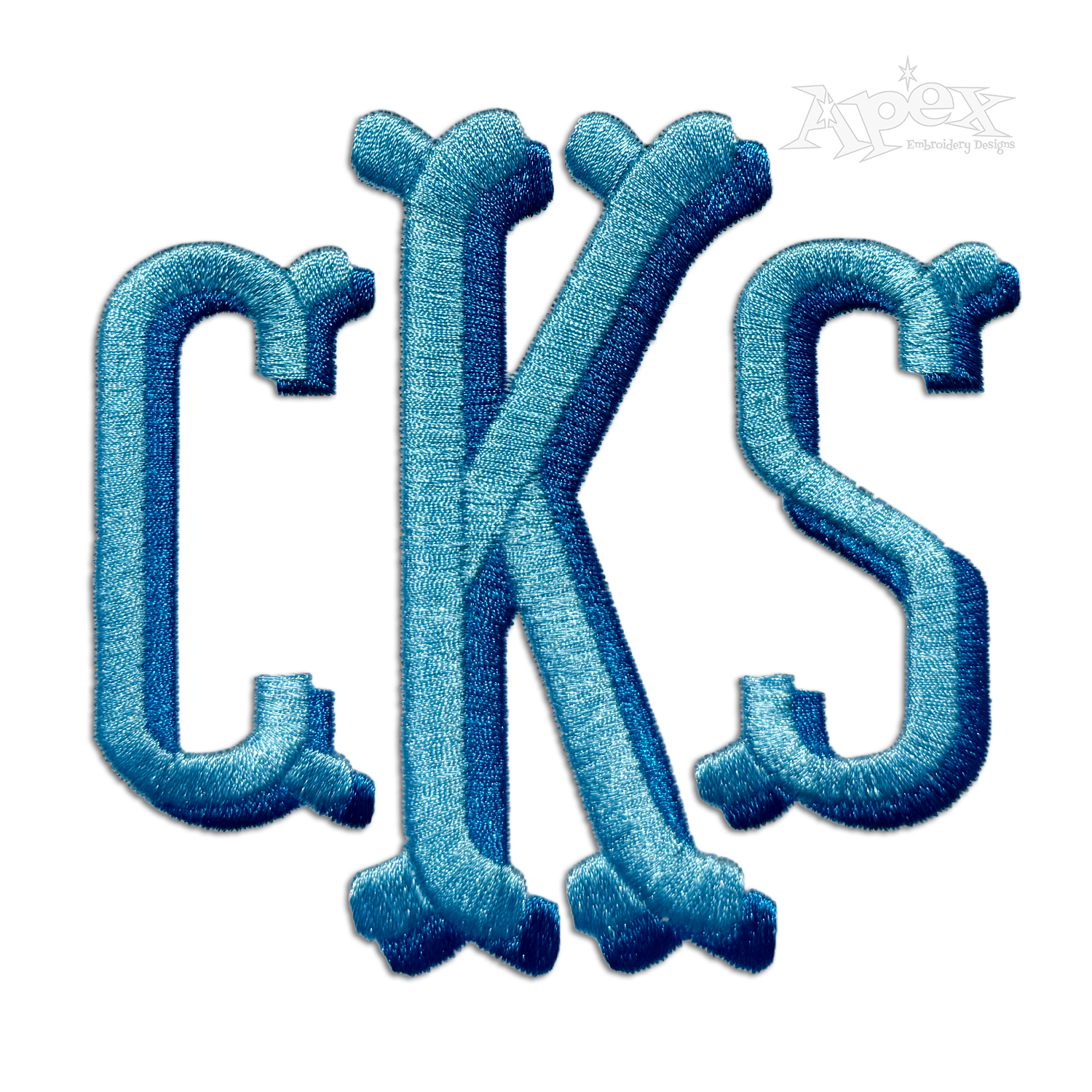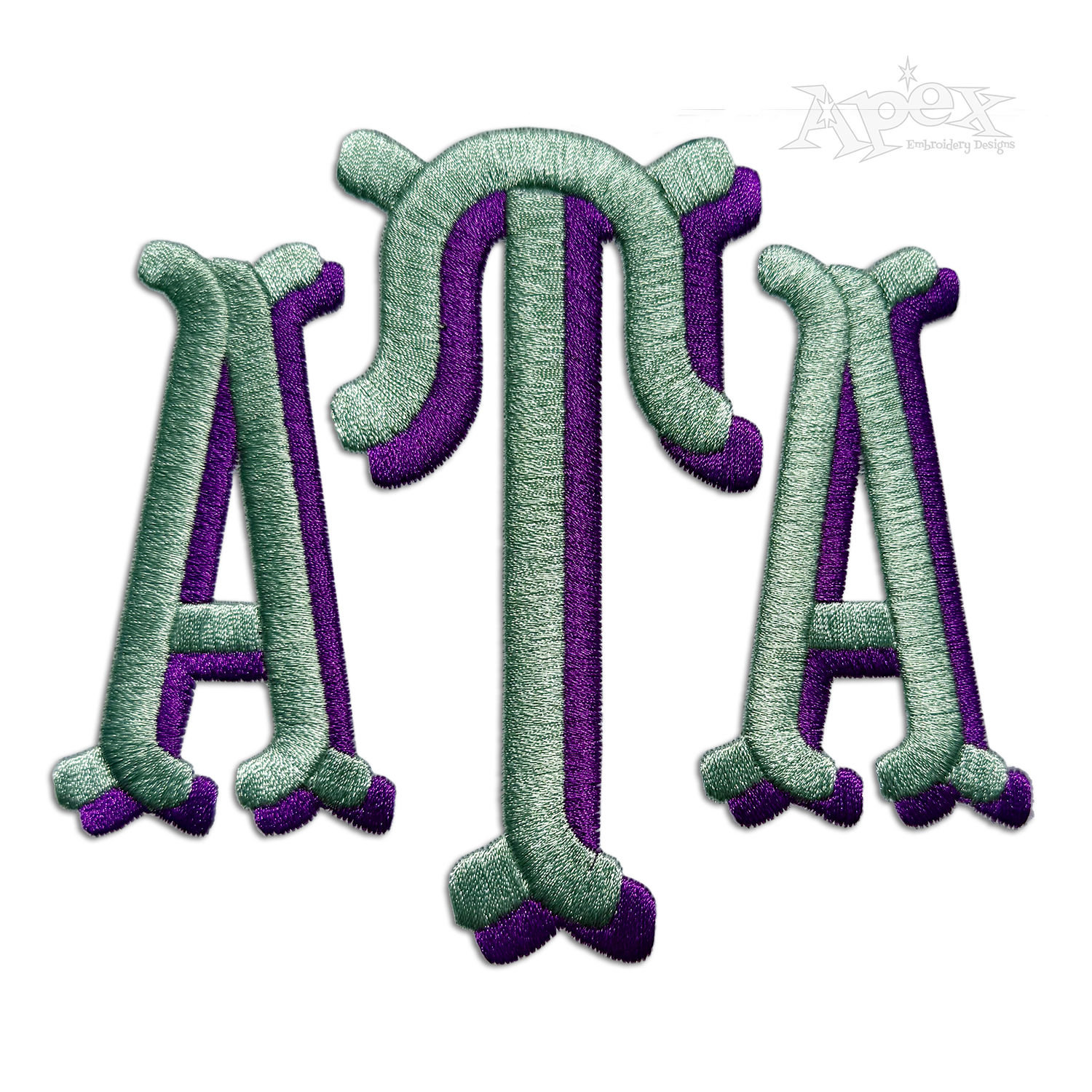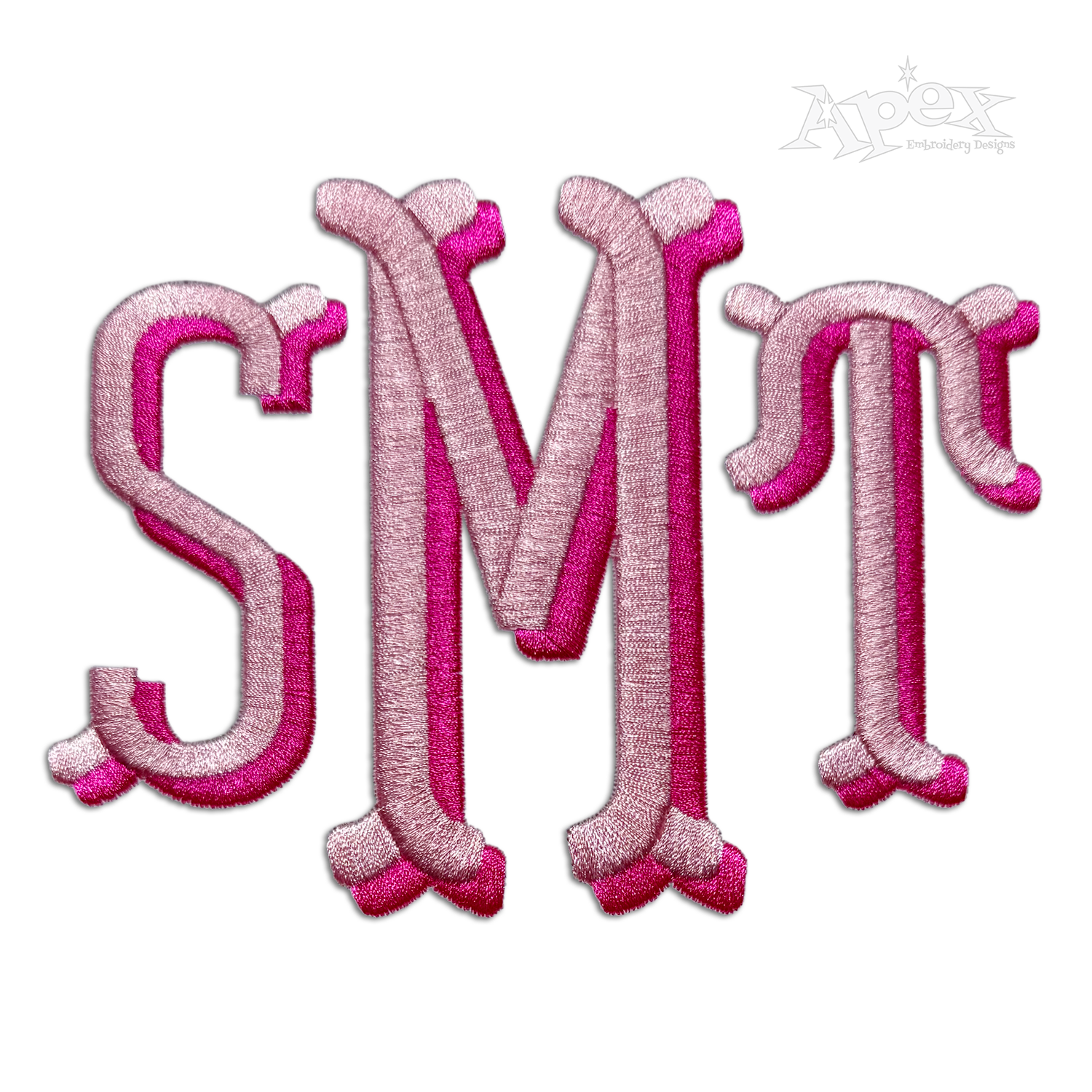
Fishtail Rounded Shadow Stacked Embroidery Font
Create shadow stacked style personalized gifts and home décor with Fishtail Rounded . All satin both shadow and stacked 2-color Monogram Embroidery Font embroidery monogram set is perfect for customizing hats, linens, towels, baby gifts, tote bags, and more.
This premium 2-color Fishtail Shadow embroidery font collection includes complete size sets with uppercase monogram letters designed for creating stunning 3-letter monograms. Each font comes professionally digitized for smooth stitching and excellent embroidery results. Apex has digitized machine embroidery fonts for over 25 years.
- Fishtail Shadow French Monogram Font
- All Satin Stitch for 3-Letter Monograms
- 2-color Shadow Stacked